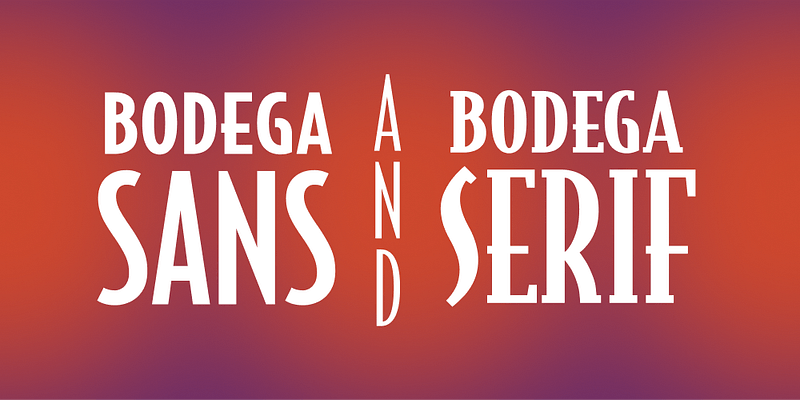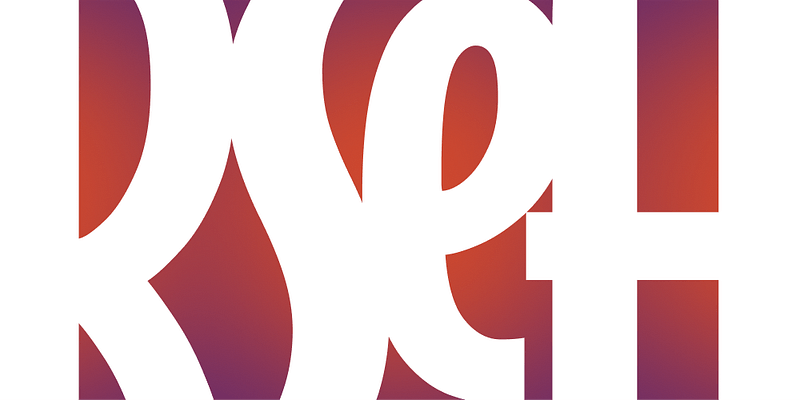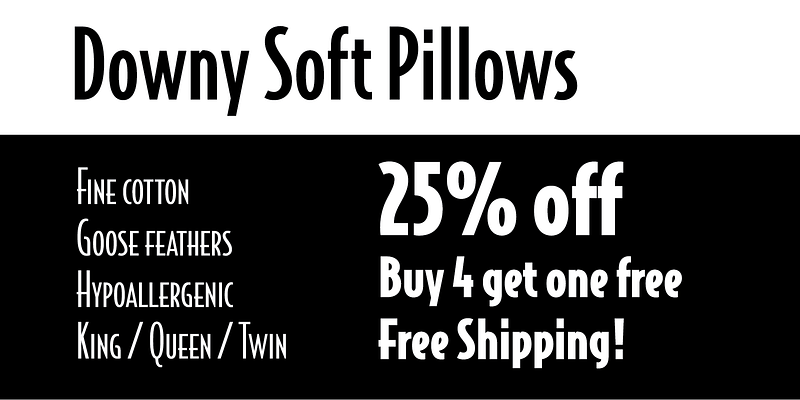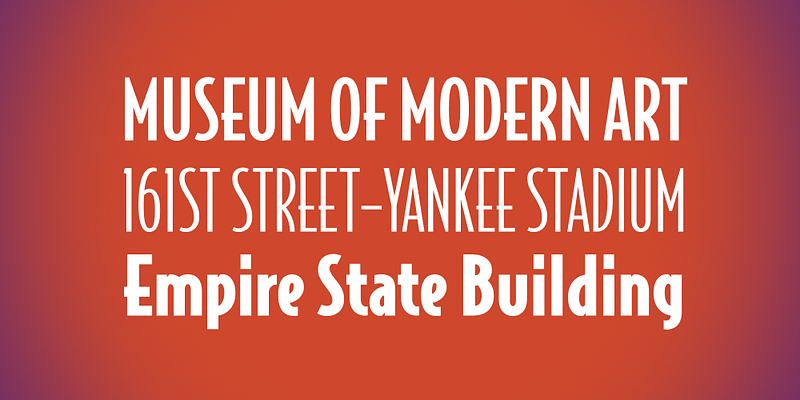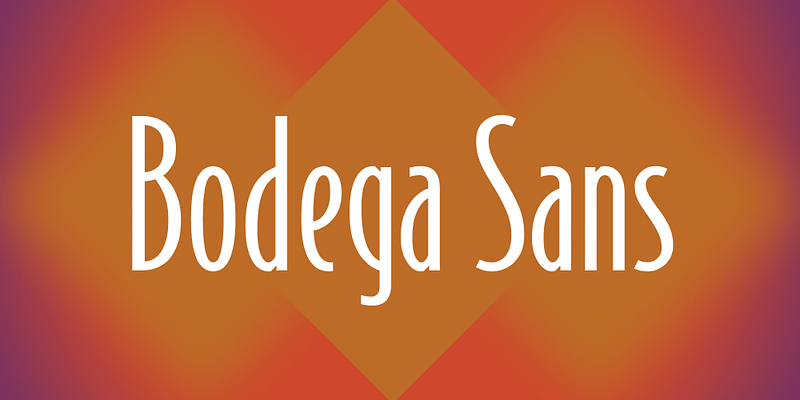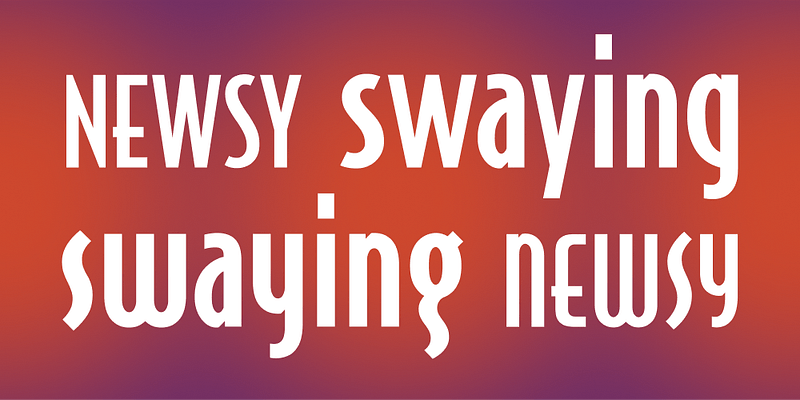
Released in 1990, Bodega Sans adopts numerous ideas from the high period of Art Deco, providing designs that are as fresh as they are nostalgic. This geometric series, along with its later serifed companion, is unique in offering both angular and nostalgically rounded forms of each weight, which designer Greg Thompson has called Regular and Oldstyle, as well as Regular Small Caps, offering unique typographic opportunities; FB 1990–92
Since the late 1980s, Greg Thompson has developed popular typefaces that are now part of our visual landscape and branding vocabulary for large, forward-thinking companies and agencies alike. With a sense of historical reference combined with modern visual considerations, the fonts from Greg Thompson Type speak to more than one specific period in time. Each family is a chameleon capable of enhancing a designer’s limitless ideas, from movie posters to food packaging, book publishing, and beyond.